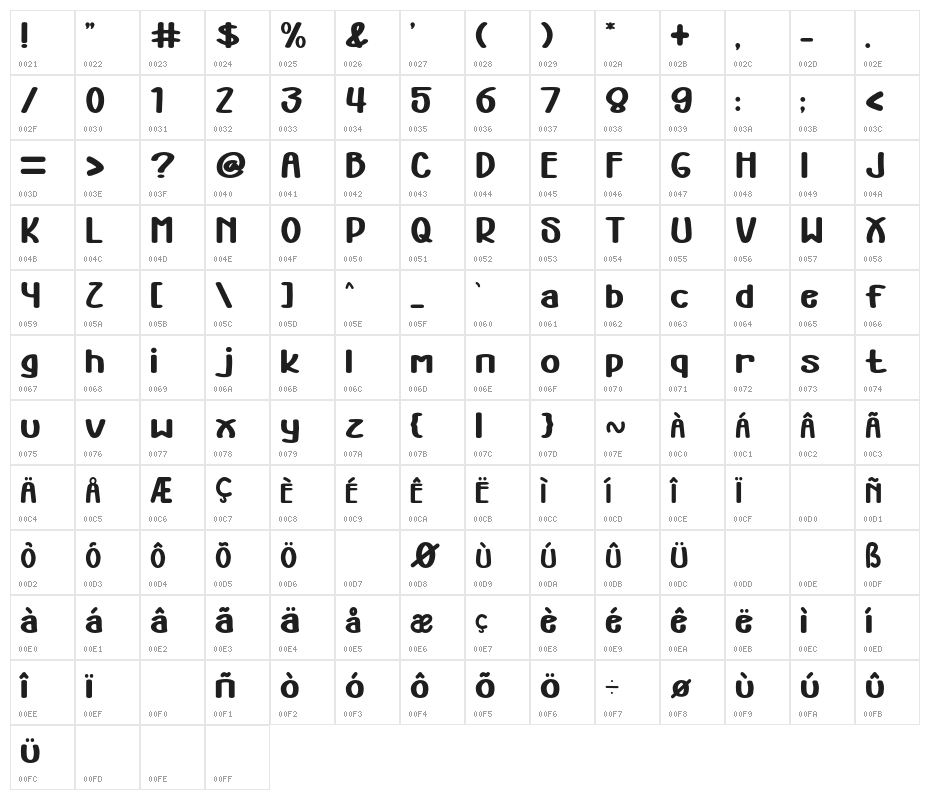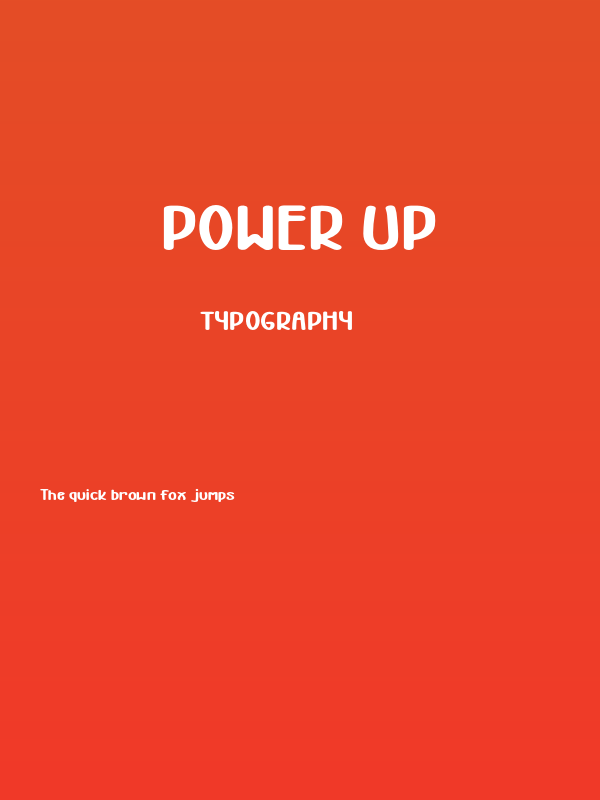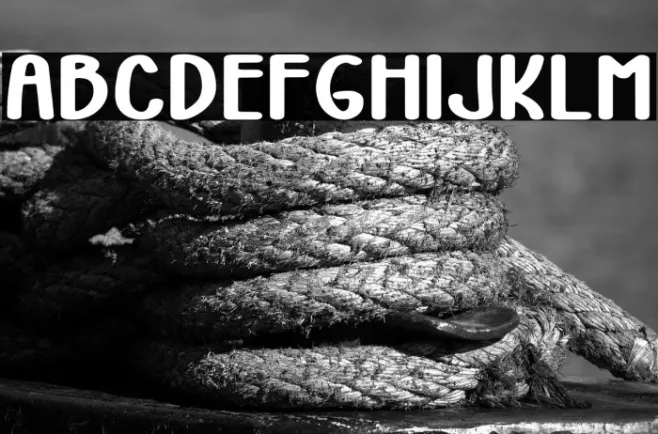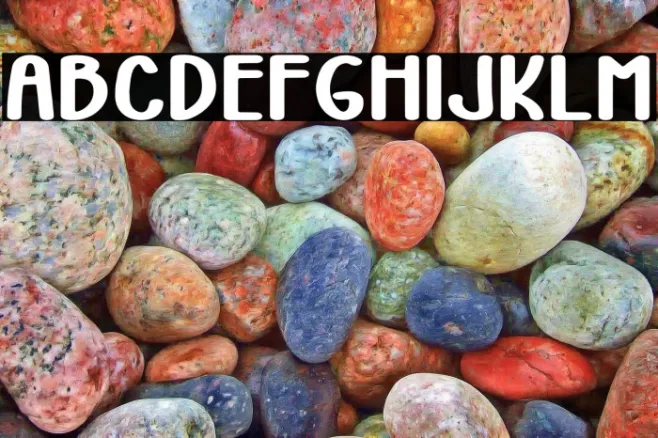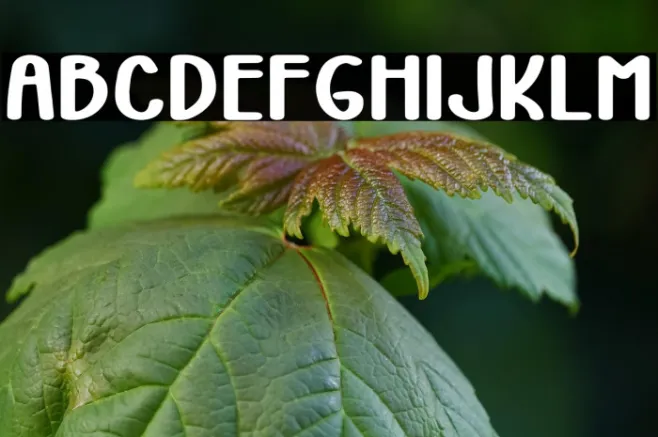
Power Up Font
Power Up Description
This playful and bold font features rounded edges and a friendly, approachable style. The characters are thick and have a consistent weight throughout, giving it a strong presence. The uppercase and lowercase letters maintain a uniform appearance, with slightly exaggerated curves that add a whimsical touch. Numbers and special characters follow the same design principles, ensuring a cohesive look across all elements. The font's overall aesthetic is casual and fun, making it suitable for projects that aim to convey a sense of joy and creativity.
| Proposed Projects | Ideal for children's books, playful branding, party invitations, and casual social media graphics. |